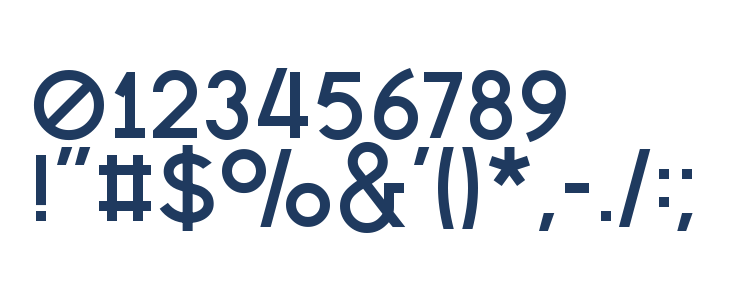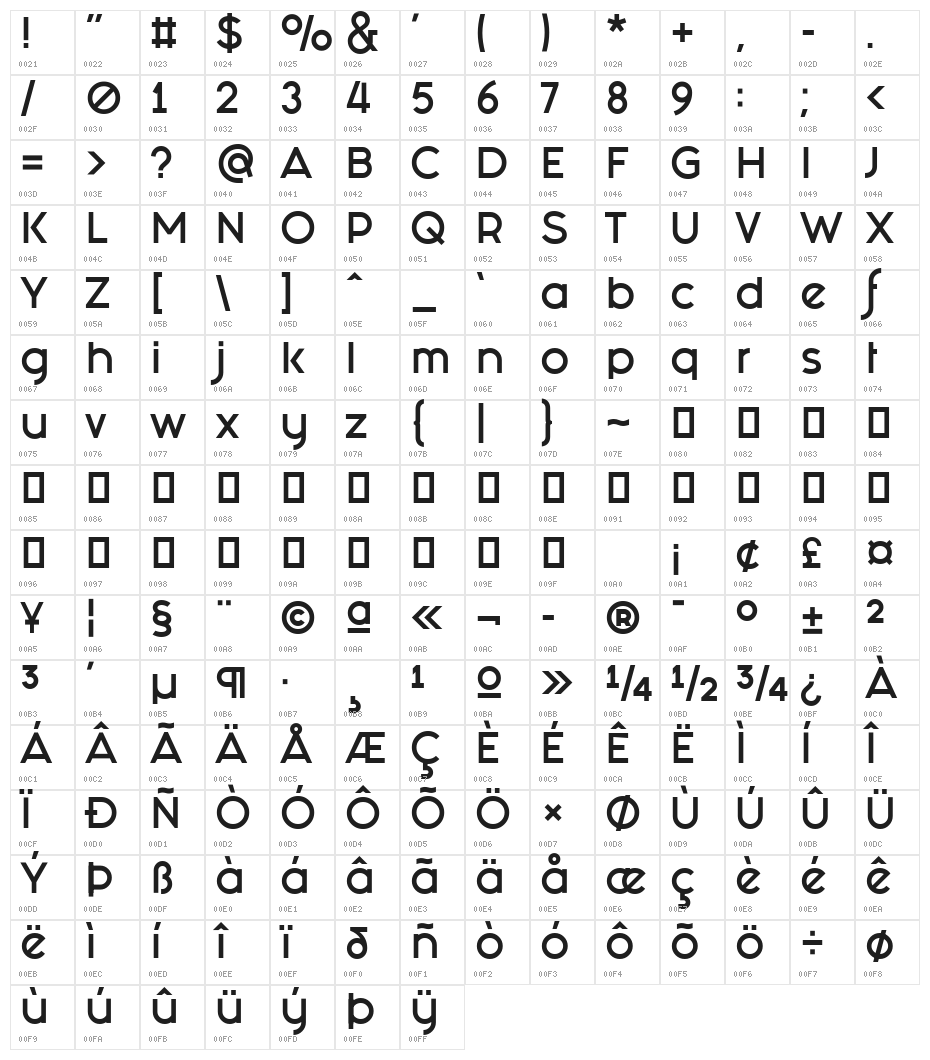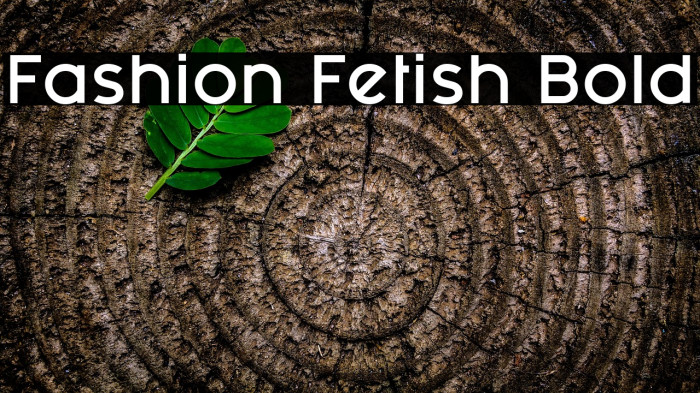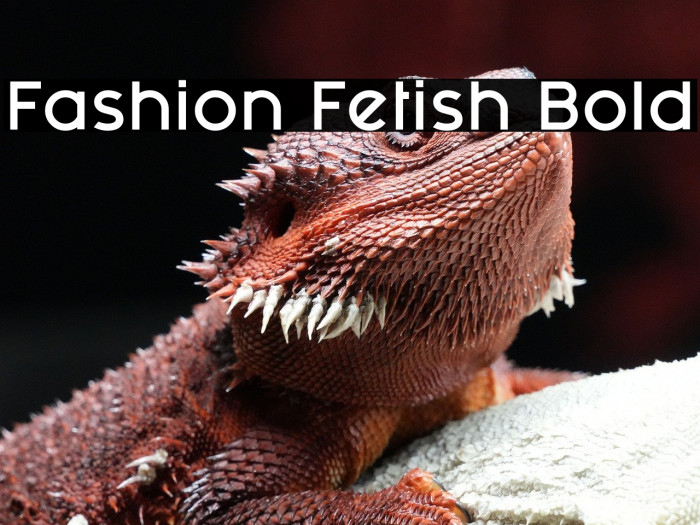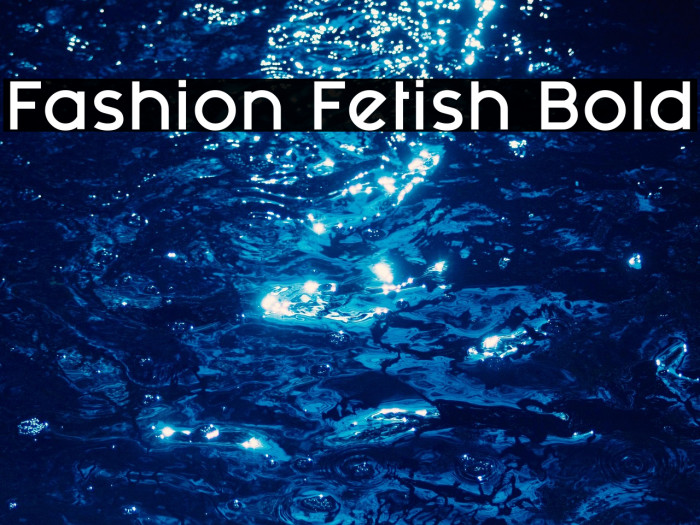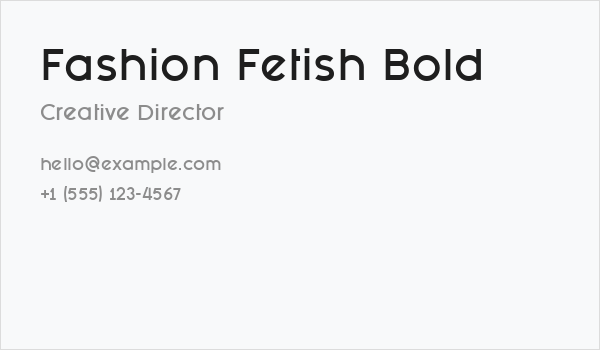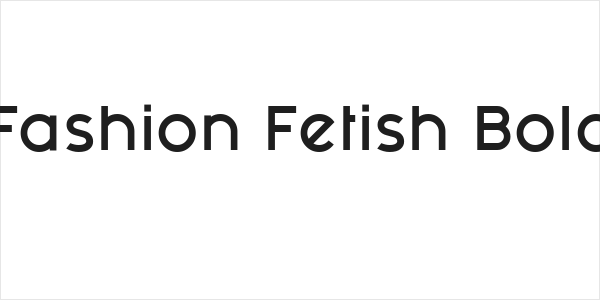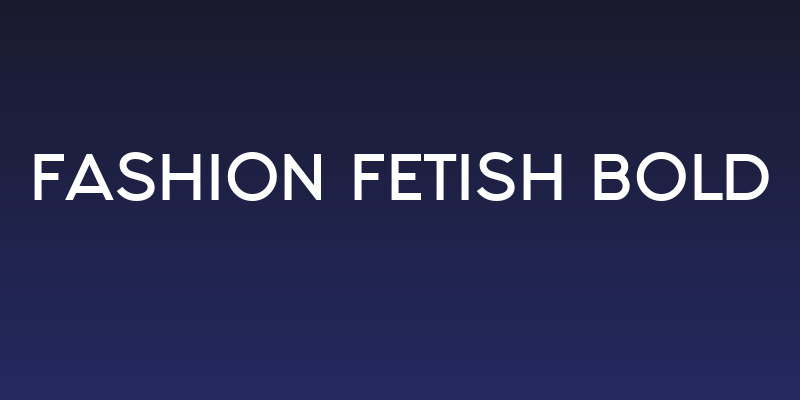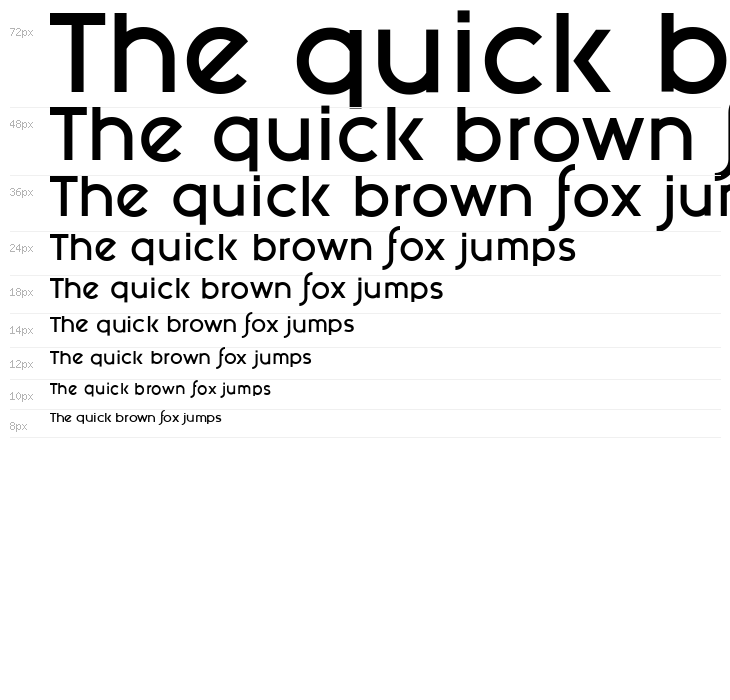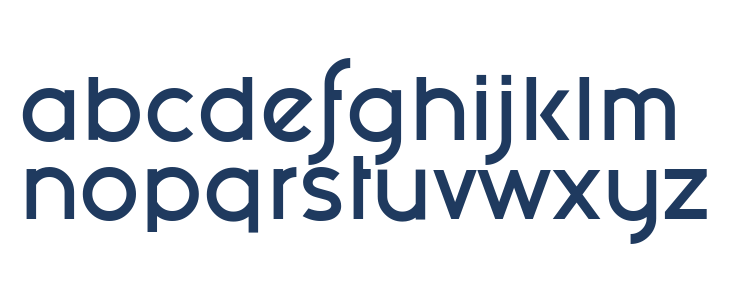
Fashion Fetish Bold Font
Fashion Fetish Bold Description
This font features a bold and modern sans-serif style with clean lines and geometric shapes. The uppercase letters are uniform in height, creating a strong and cohesive look. The lowercase letters maintain a consistent roundness, adding a touch of softness to the overall design. Numbers are clear and easy to read, with a similar geometric style that complements the letters. Special characters are well-defined, ensuring versatility in various design contexts. The font's bold weight and modern aesthetic make it suitable for attention-grabbing headlines and impactful designs.